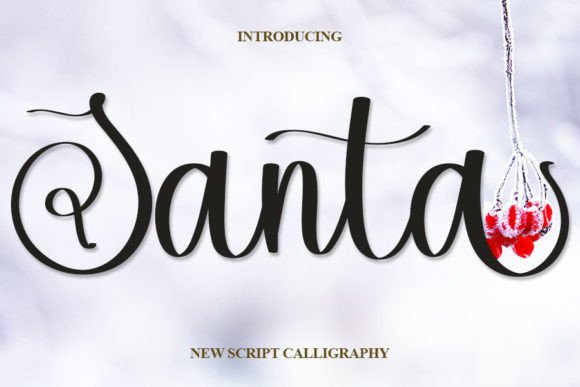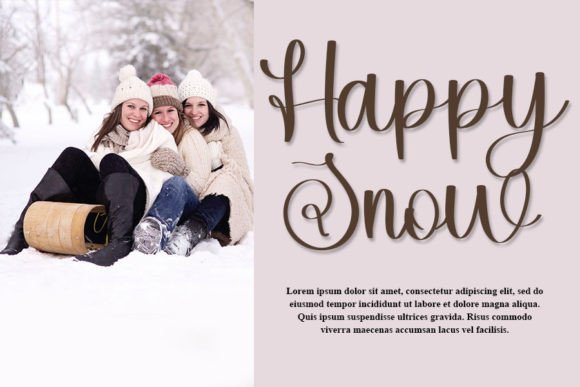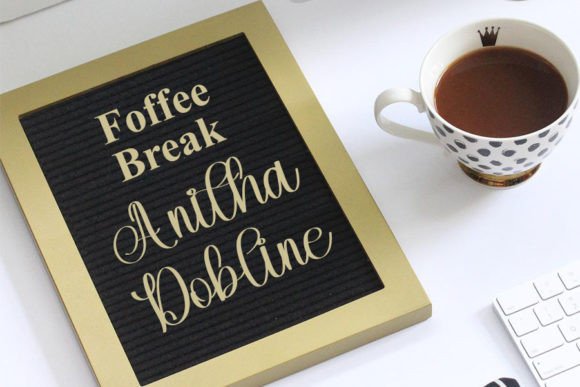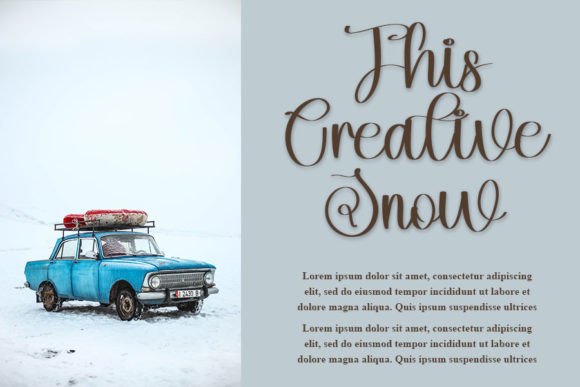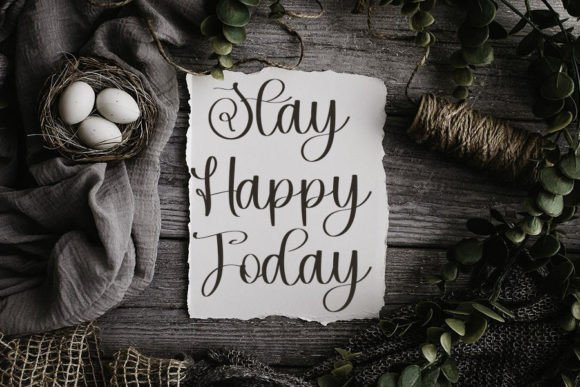
Santa Font
Add a stylish and elegant touch to your holiday and creative projects with the Santa font. This trendy handwritten script features a contemporary atmosphere combined with impeccable form. Inspired by timeless classic calligraphy, it brings a refined look to your designs.
The Santa font is ideal for holiday cards, invitations, branding, social media posts, and much more. Its smooth, flowing strokes add sophistication and charm. This font helps your projects stand out with a polished and festive style.
Each character in the Santa font is carefully crafted to balance beauty and readability. This ensures your designs are visually appealing while remaining clear and easy to read. The font’s versatility allows it to adapt to many creative uses.
Despite its elegant style, the Santa font remains highly legible at different sizes. Whether used for bold headlines or delicate accents, it enhances your creative work with class and warmth.
Using this font will help your holiday projects capture attention with a memorable and graceful style. If you want your designs to look trendy and classy, the Santafont is an excellent choice.
In summary, the Santafont fits many holiday and creative projects. From greeting cards and invitations to branding and social media, it brings elegance and festivity. Download it today and create stunning, polished designs with this trendy handwritten script.